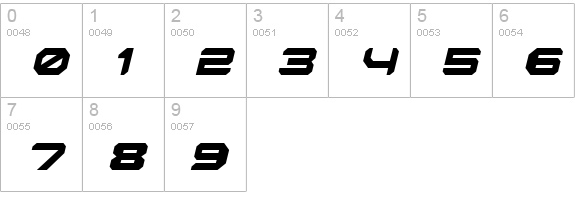
Robotaur Italic Font Details
Robotaur Italic is a distinctive, italic variant in the Robotaur typeface family \xE2\x80\x94 well suited to design and typography projects.
Robotaur Italic is a sleek and modern font that combines the futuristic elements of robotics with the classic elegance of typography. Its italic style adds a dynamic flair to any design project, making it perfect for branding, advertising, and editorial purposes. The striking geometric shapes and clean lines of Robotaur Italic give it a contemporary edge, while the subtle curves add a touch of sophistication. This font is versatile and can be used for both headers and body text, ensuring consistency and coherence throughout your design. Best of all, Robotaur Italic is available for free download at FontsMarket.com. Whether you're a designer looking to experiment with a new typeface or a business owner seeking a fresh look for your brand, Robotaur Italic is an excellent choice that won't break the bank. Download it today and elevate your design projects with this stylish and versatile font.